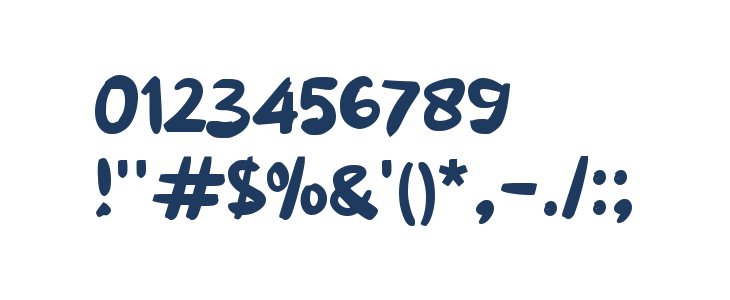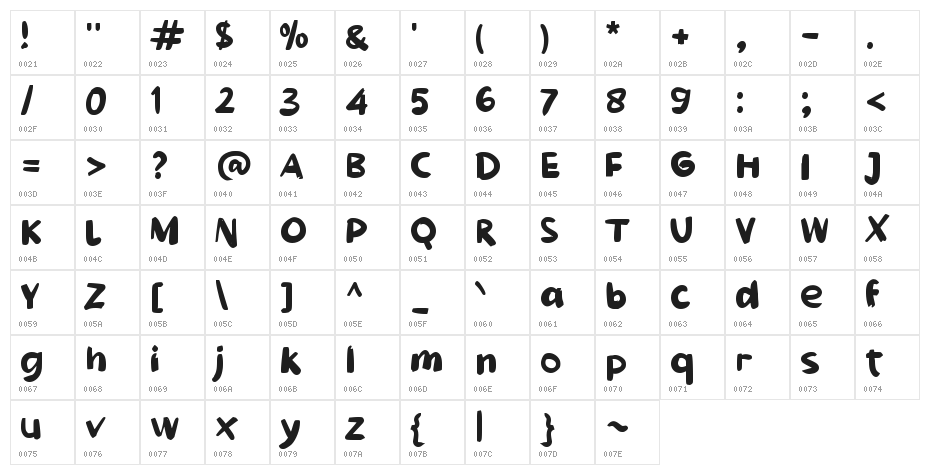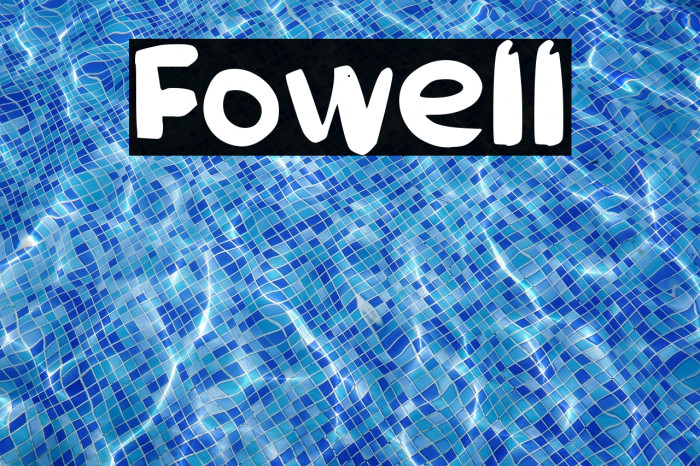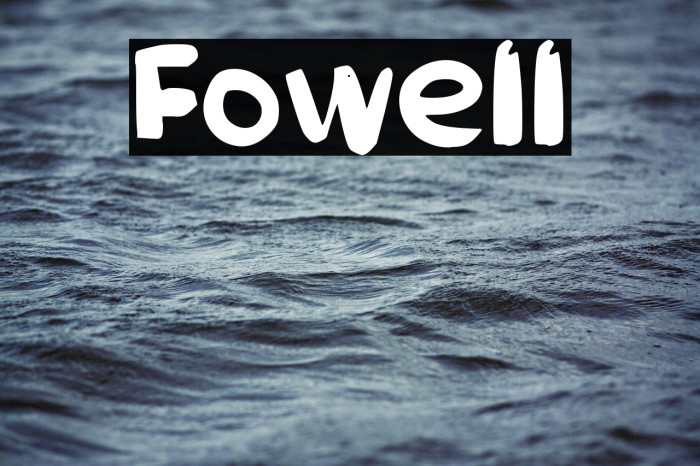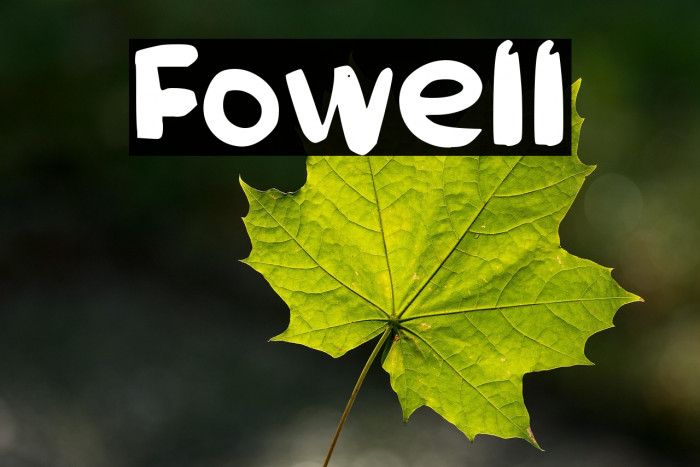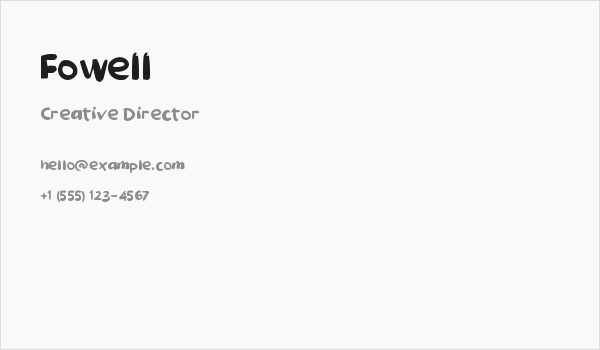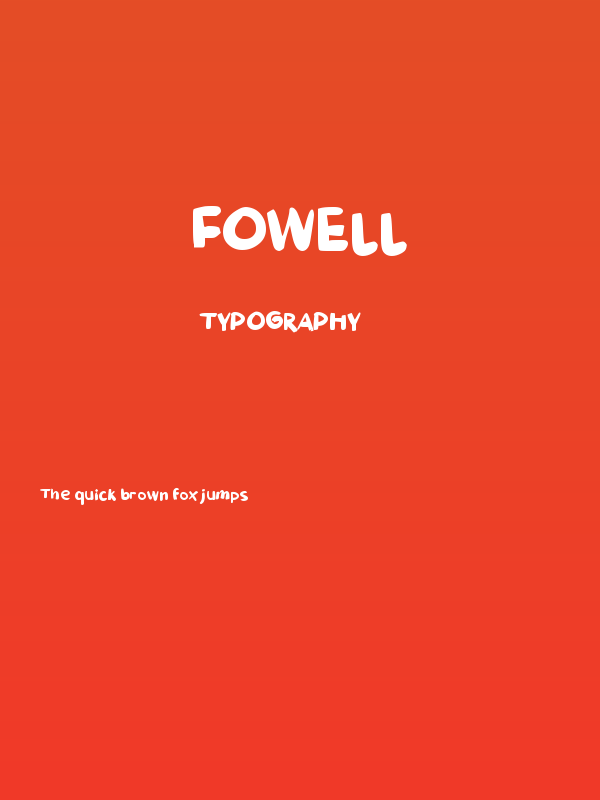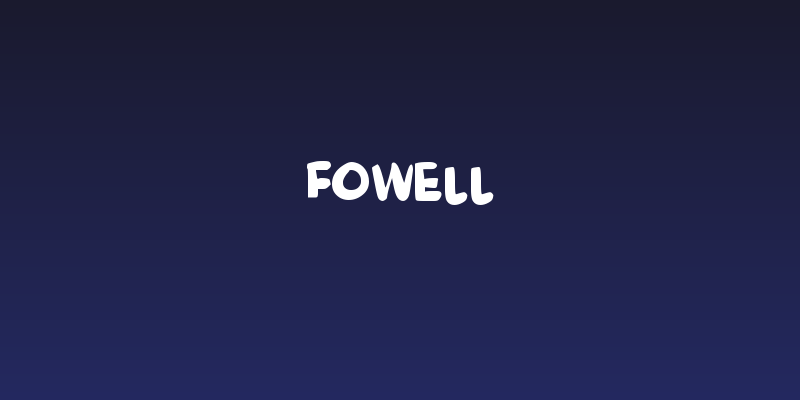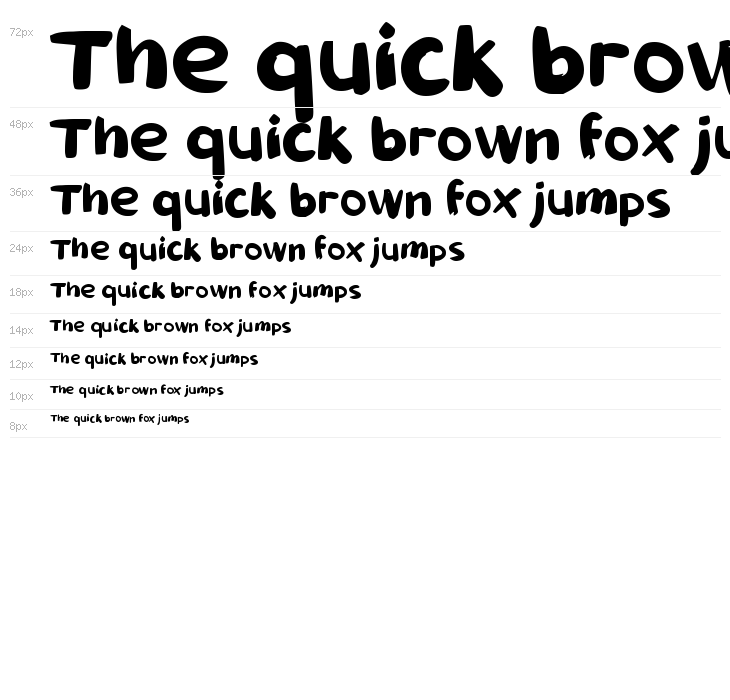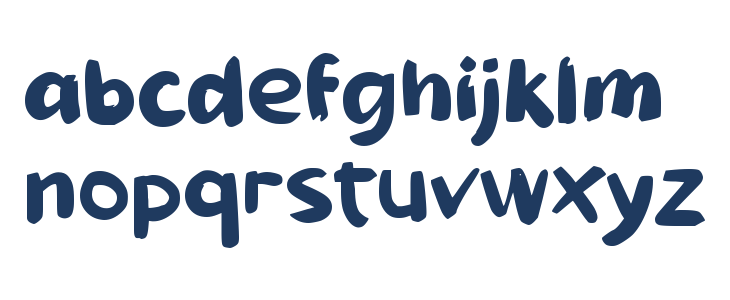
Fowell Font
Fowell Description
This playful and bold font features a hand-drawn aesthetic with rounded edges and a slightly irregular baseline, giving it a whimsical and friendly appearance. The characters are thick and substantial, providing a strong presence on the page. The uppercase and lowercase letters maintain a consistent style, with a slight slant that adds to the casual feel. Numbers and special characters are equally bold and maintain the same playful design, making them easily readable and visually appealing. This font is perfect for projects that require a fun and approachable look, such as children's books, playful branding, or creative posters.
Overall StylePlayful
Use CaseHeadlines, Logos, Posters
Proposed ProjectsIdeal for children's books, playful branding, creative posters, and informal invitations.